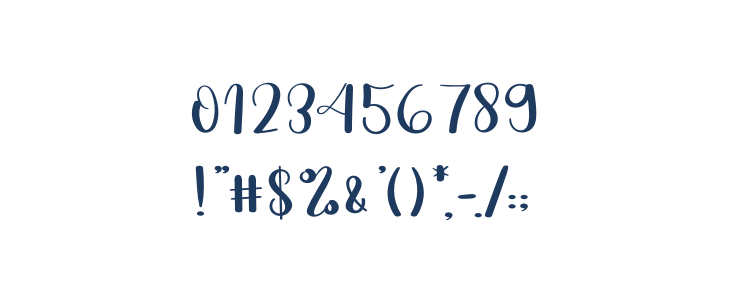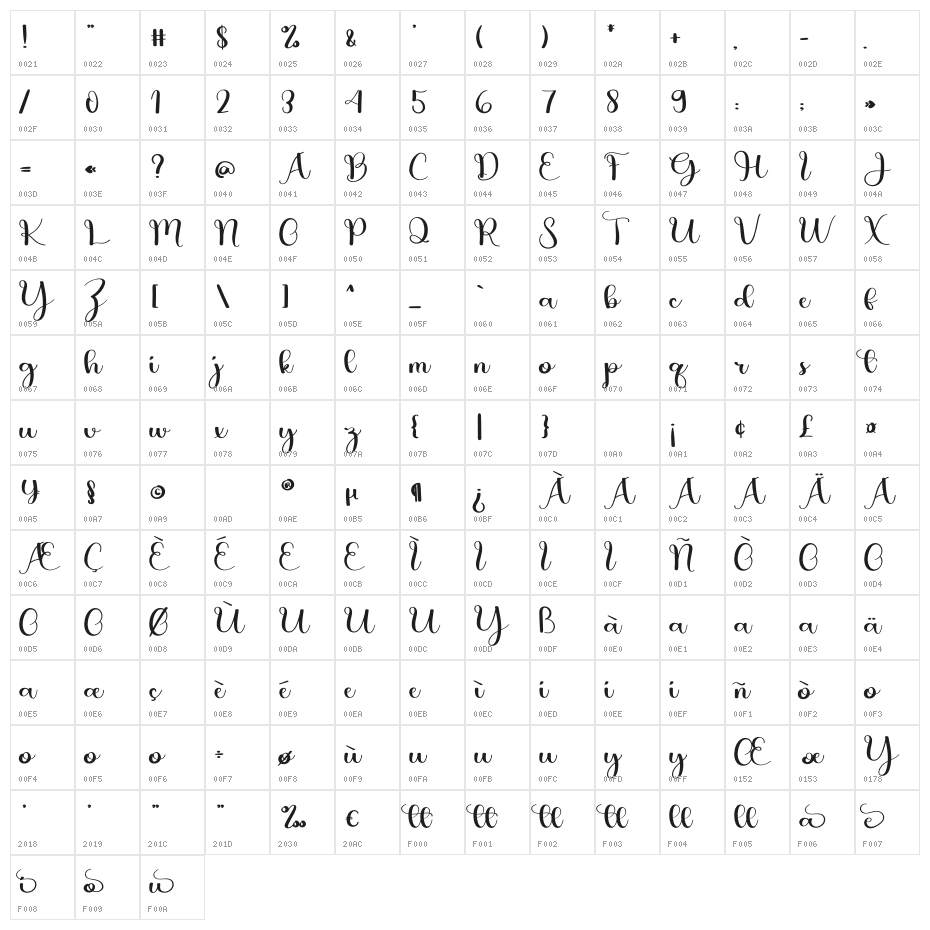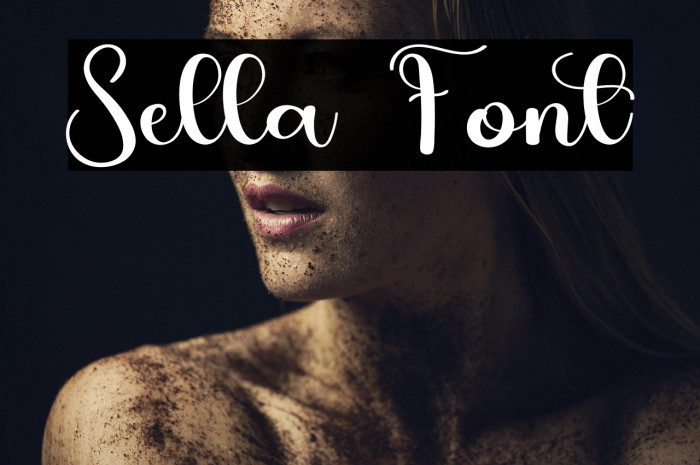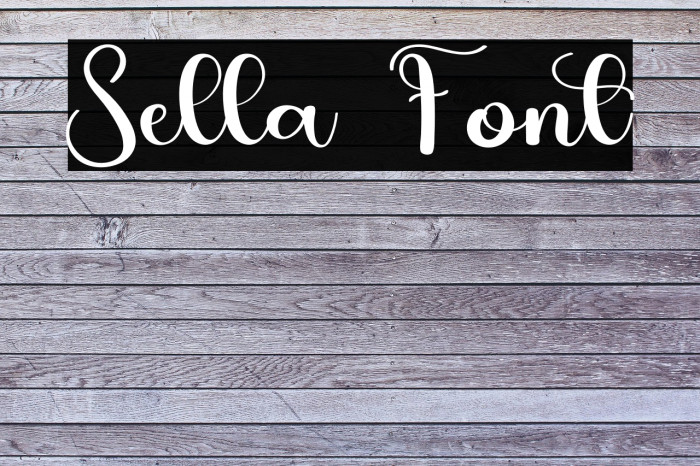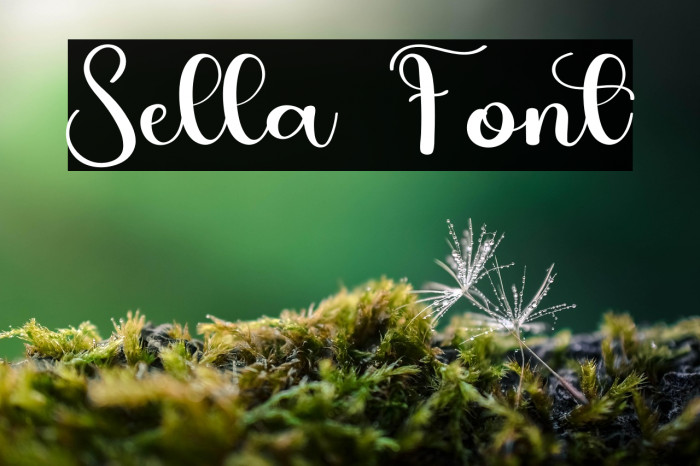
Sella Font
Sella Description
This font features a playful and elegant script style with a flowing, cursive design. The uppercase letters are characterized by their graceful loops and swirls, giving them a sophisticated yet whimsical appearance. The lowercase letters maintain a consistent style, with smooth curves and a slightly more compact form. The numbers are designed to match the overall aesthetic, with a balanced and harmonious look. Special characters are included, maintaining the same decorative flair. This font is ideal for projects that require a touch of elegance and creativity, such as invitations, branding, and artistic designs.
| Use Case | Logos, Invitations, Artistic designs |
| Proposed Projects | Ideal for wedding invitations, branding, greeting cards, and artistic projects. |